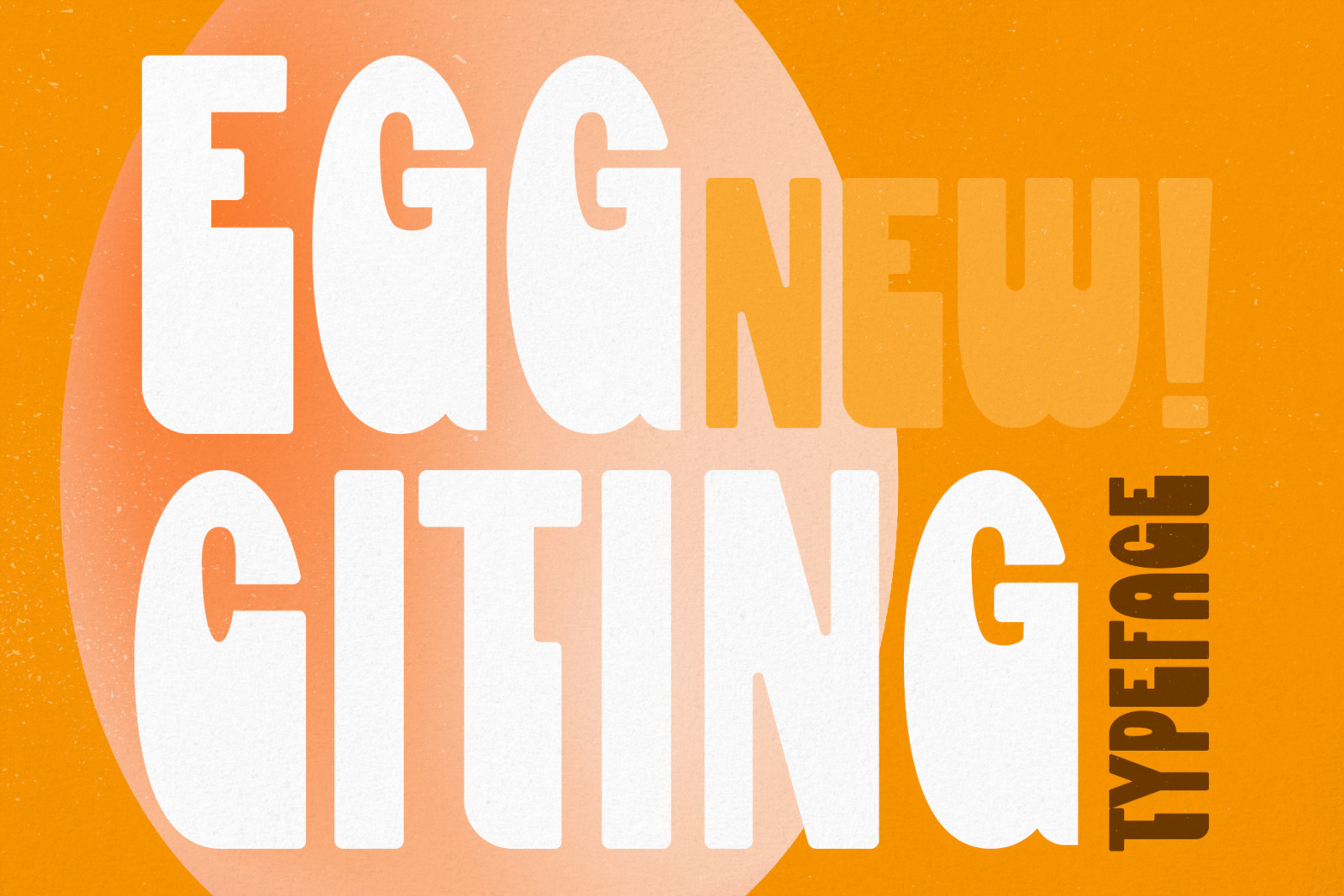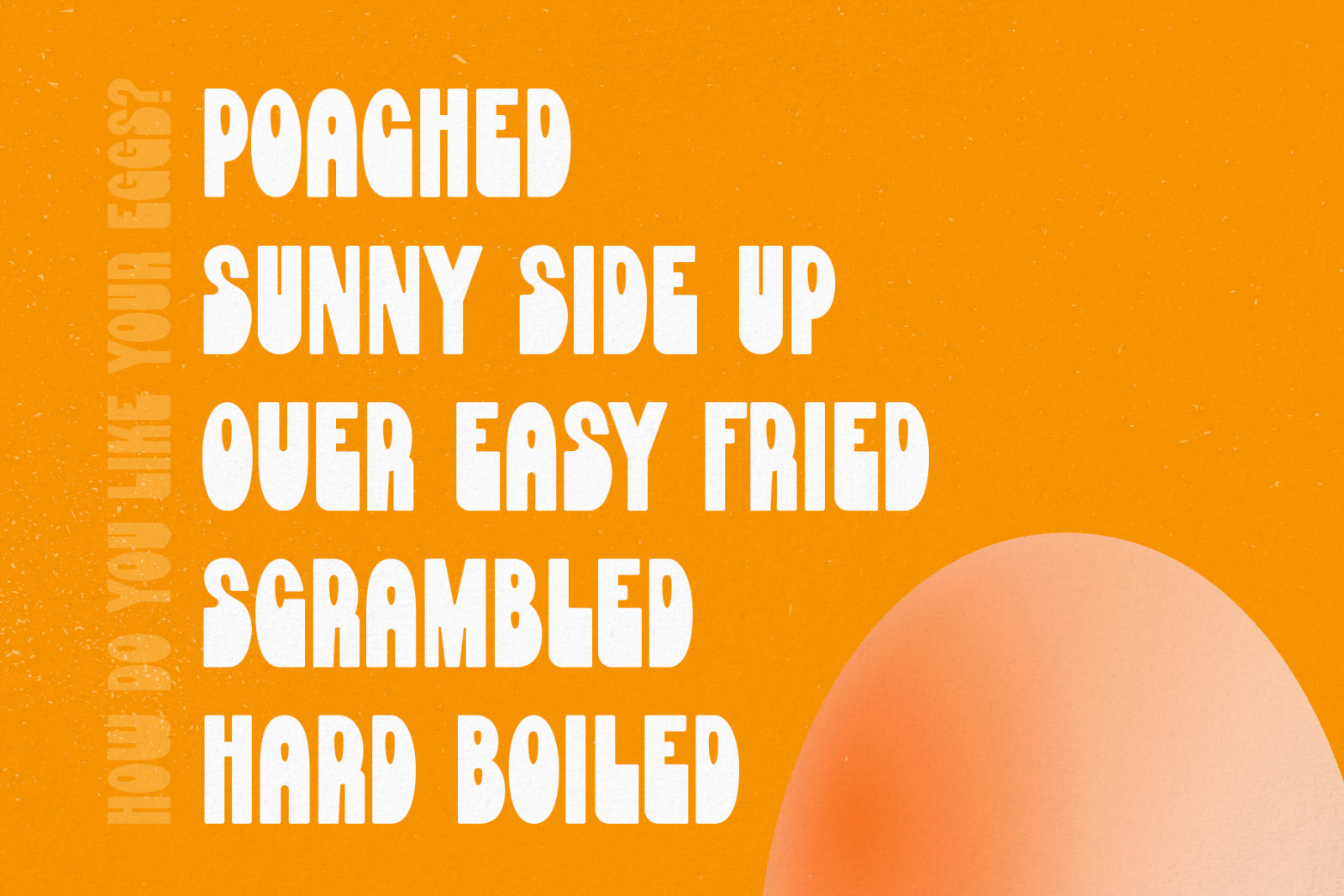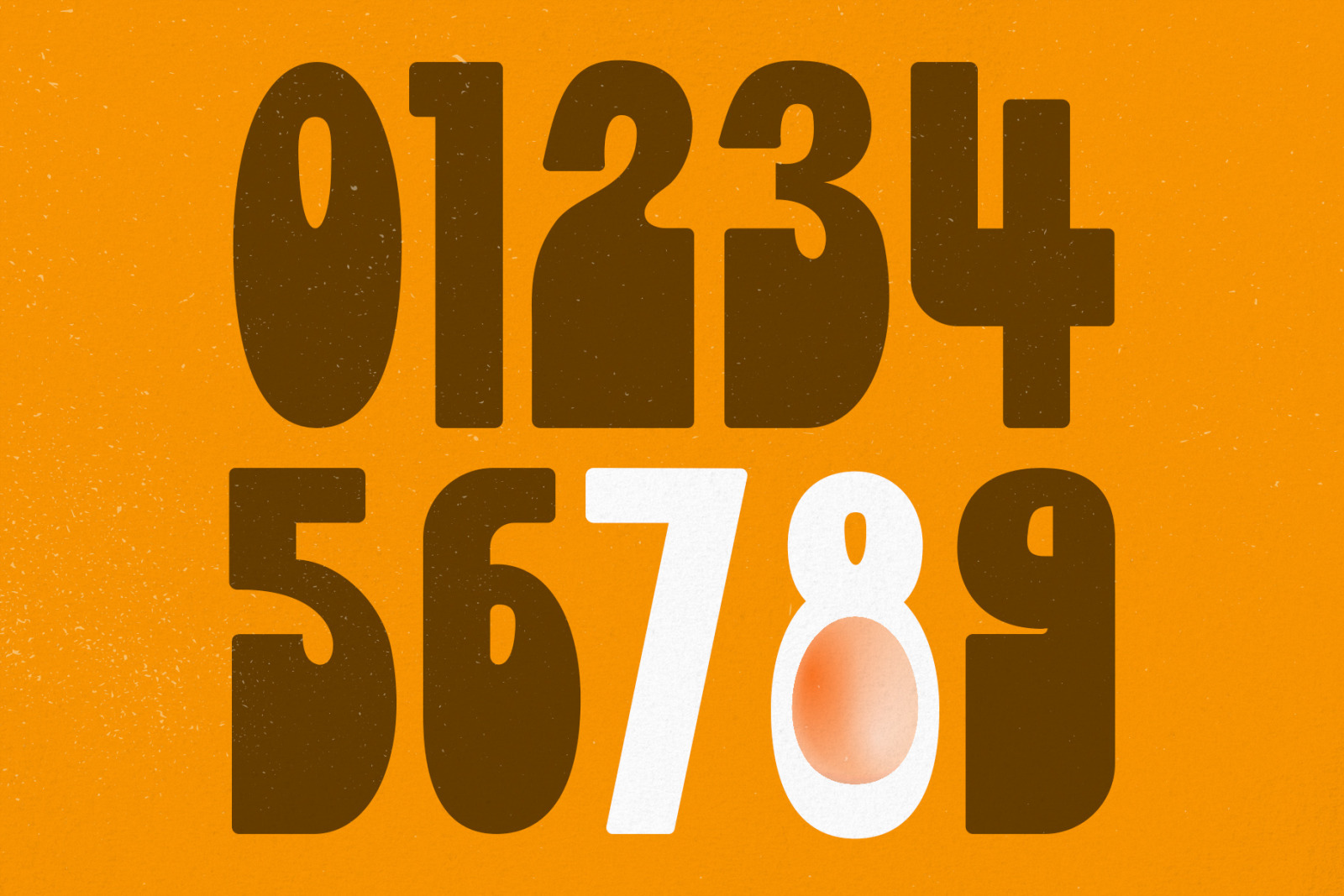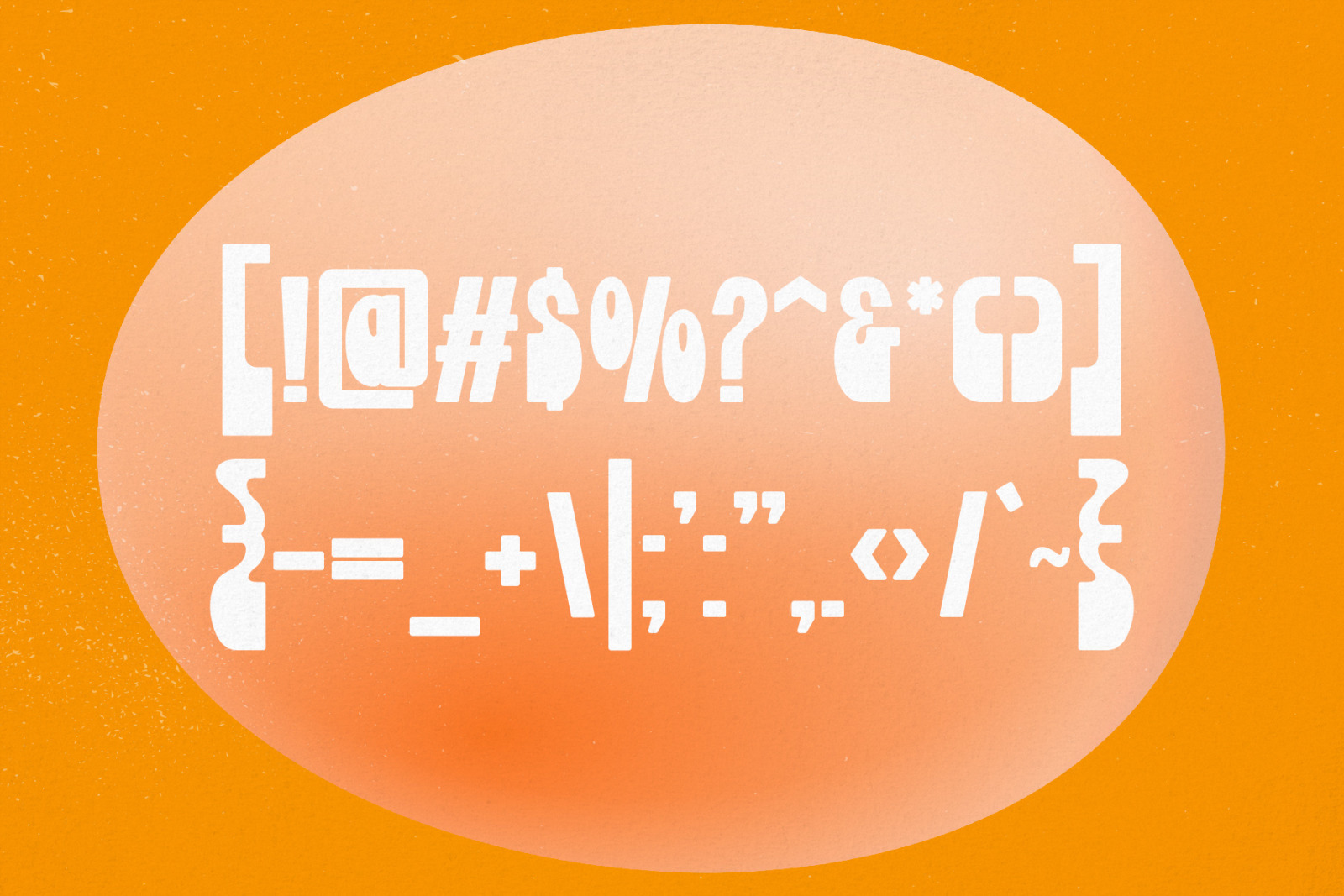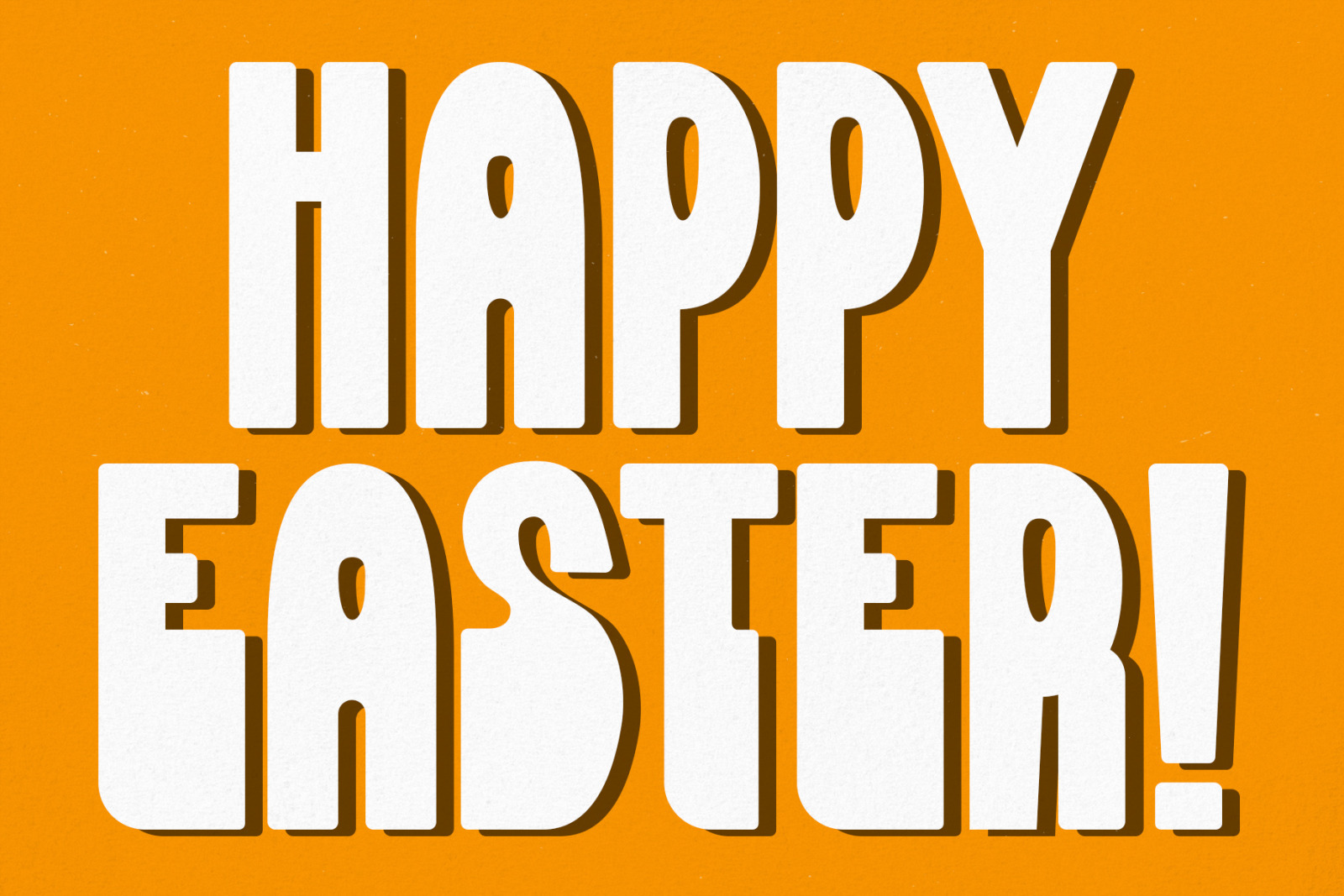
Eggciting Typeface
Eggciting is a cute and fun typeface! This font is perfect for quotes, shirt designs, websites, branding, children's designs, cricut svg designs, blogs, logos, invitations, and much more!
Eggciting comes with uppercase, lowercase, numerals, and standard punctuations. It's perfect for lighthearted design projects that require a friendly/playful feeling.